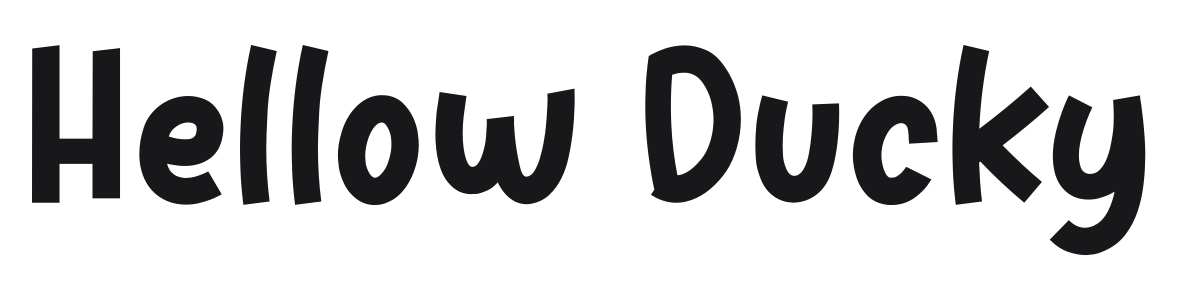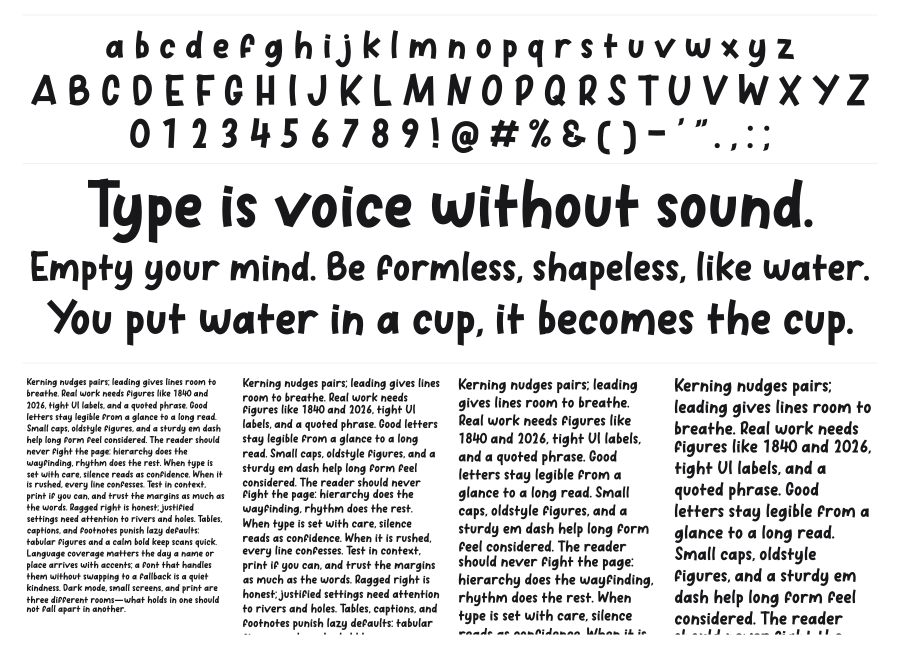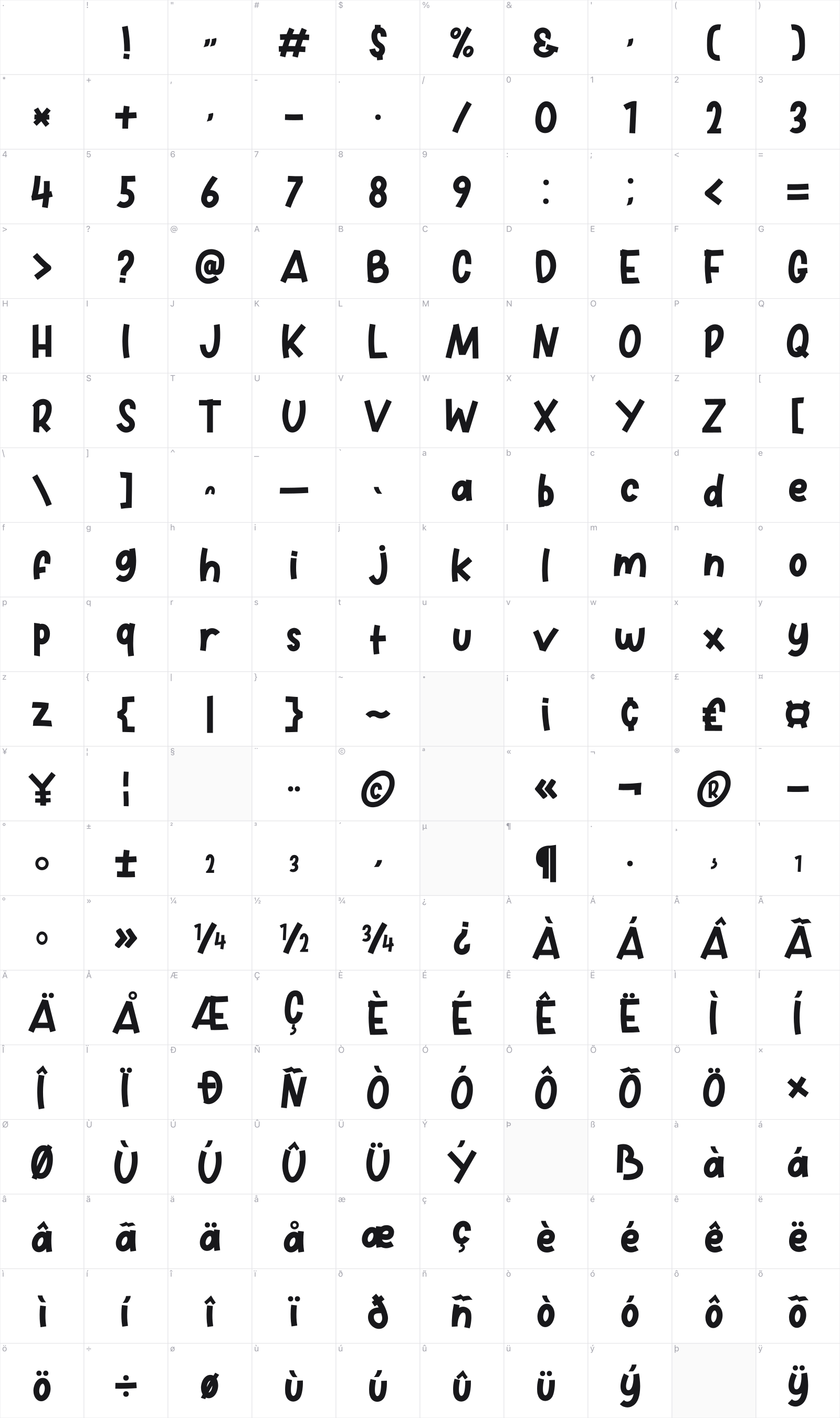
Hellow Ducky
by Handstype Studio
Hellow Ducky is a bold hand-drawn casual font with a bouncy, marker-drawn personality. The rounded, slightly wobbly characters sit at irregular angles, giving it a spontaneous energy that feels genuinely handmade rather than mechanically constructed. Great for children's content, playful branding, and anything that needs to feel approachable and fun.